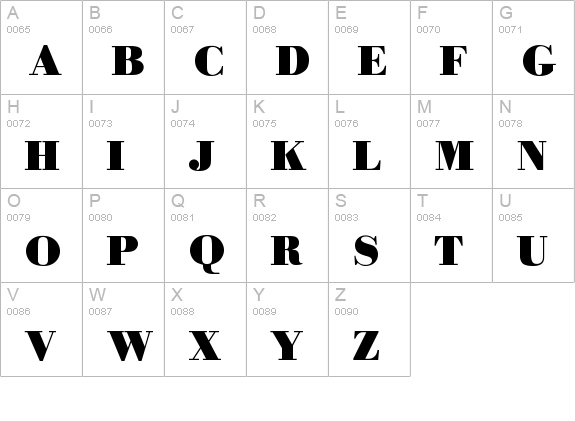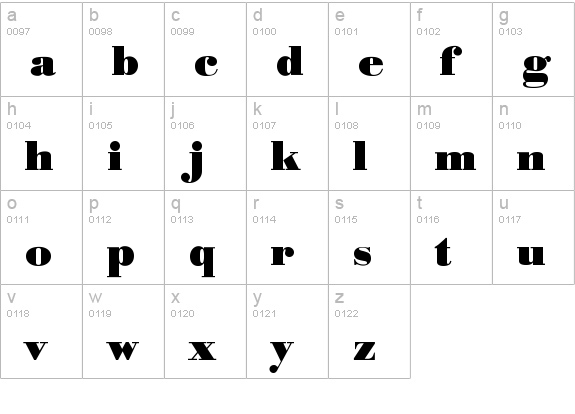
Bodoxi-Heavy is a heavy, high-impact variant in the Bodoxi typeface family \xE2\x80\x94 well suited to high-impact headlines, posters, and display advertising.
Bodoxi-Heavy font is a bold and impactful typeface that commands attention with its strong and sturdy appearance. Perfect for headlines, titles, and other prominent text, this font exudes confidence and power. Its thick strokes and sharp angles give it a modern and edgy feel, making it a great choice for projects that require a bold statement. What's even better is that Bodoxi-Heavy font is available for free download at FontsMarket.com. You can easily access this impressive font and add it to your collection without any cost. Don't miss out on the opportunity to enhance your designs with this striking typeface that will make a lasting impression.